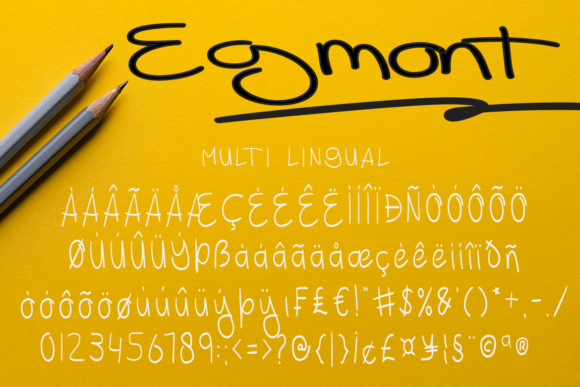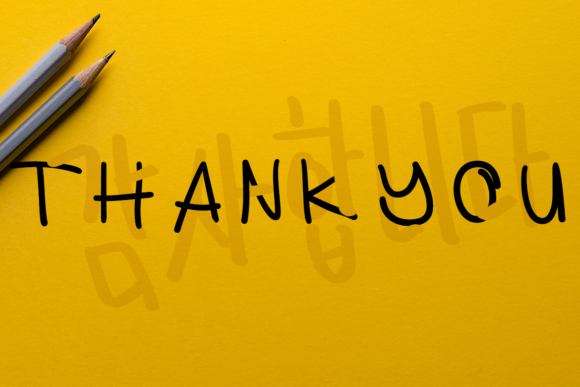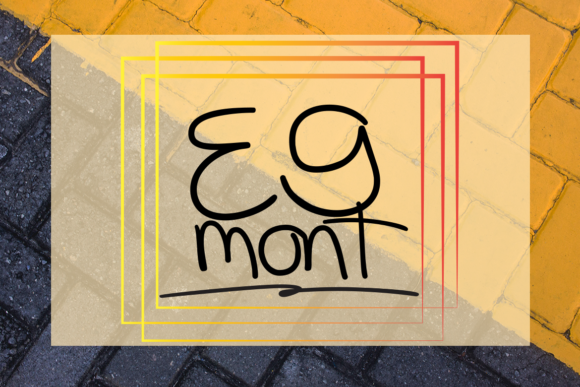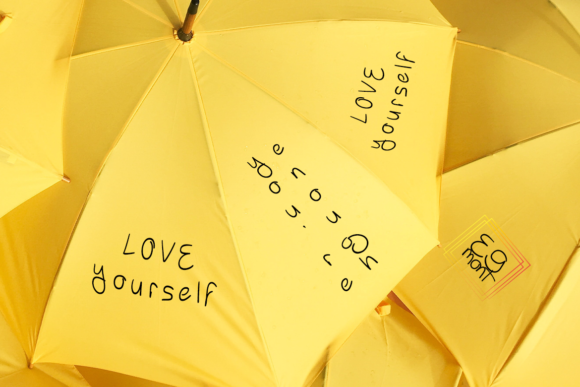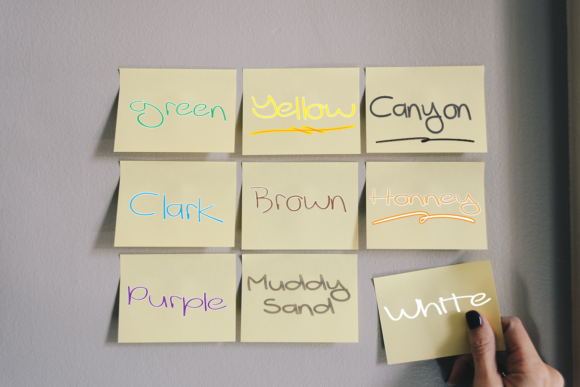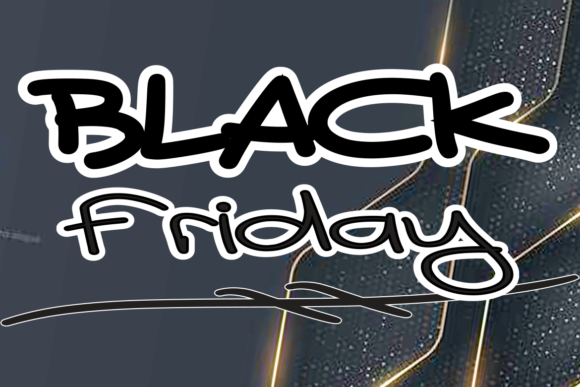
About Egmont Font
Egmont is a cool, trendy and neat handwritten font. Simple but with a strong visual effect, this font will instantly make your creation more appealing than any others.